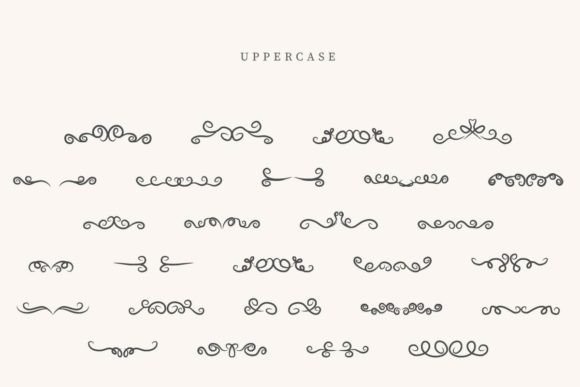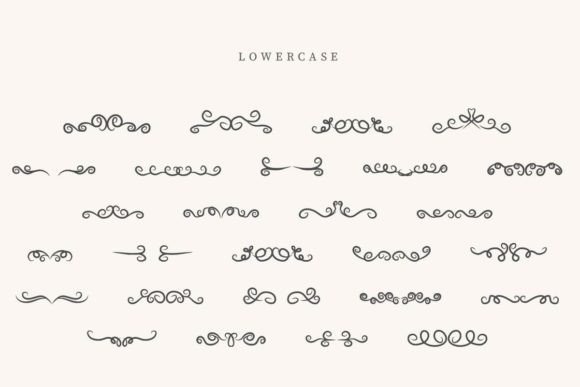
Bee Divider Font: Add a Touch of Retro Charm to Your Craft Projects
Are you a crafter or designer looking for a unique and playful font to add a retro touch to your projects? Look no further than the Bee Divider Font, a retro vintage dingbat font that’s perfect for crafting projects. This adorable font features cute ornament dividers with a retro, vintage, and western theme, making it ideal for a variety of creative endeavors.
What is Bee Divider Font?
Bee Divider Font is a dingbat font that showcases a collection of charming ornament dividers with a retro and vintage flair. The font’s design is inspired by the classic western theme, making it perfect for crafters and designers who want to add a touch of nostalgia to their projects. With its decorative and adorable design, this font is sure to elevate your craft projects and make them stand out.
Perfect for Retro Decorations and Craft Projects
Bee Divider Font is ideal for a variety of craft projects, including retro decorations, greeting cards, scrapbooking, and other paper crafts. The font’s retro and vintage theme makes it perfect for creating unique and eye-catching projects that are sure to impress. Whether you’re a professional crafter or a DIY enthusiast, this font is a must-have for anyone looking to add a touch of retro charm to their projects.
Key Features of Bee Divider Font
- Retro Vintage Design: The font features a retro and vintage design that’s perfect for crafters and designers who want to add a touch of nostalgia to their projects.
- Cute Ornament Dividers: The font includes a collection of cute ornament dividers that are perfect for adding a decorative touch to your projects.
- Western Theme: The font’s western theme makes it perfect for crafters and designers who want to create unique and eye-catching projects.
Why Choose Bee Divider Font?
There are many reasons why Bee Divider Font is the perfect choice for crafters and designers. Here are just a few:
- Unique Design: The font’s unique design makes it perfect for crafters and designers who want to add a touch of retro charm to their projects.